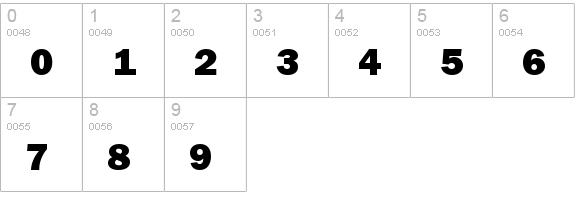
Franklin Gothic Heavy is a heavy, high-impact variant in the Franklin typeface family \xE2\x80\x94 well suited to high-impact headlines, posters, and display advertising.
Franklin Gothic Heavy is a bold and commanding typeface that exudes strength and authority. With its thick strokes and robust design, this font is perfect for making a bold statement in your designs. Whether you're creating eye-catching posters, striking headlines, or impactful logos, Franklin Gothic Heavy will help you stand out from the crowd. The best part is that Franklin Gothic Heavy is available for free download at FontsMarket.com. You can easily access this powerful font and incorporate it into your projects without any cost. Don't miss out on the opportunity to enhance your designs with the impressive Franklin Gothic Heavy font - download it now and make a powerful impact!